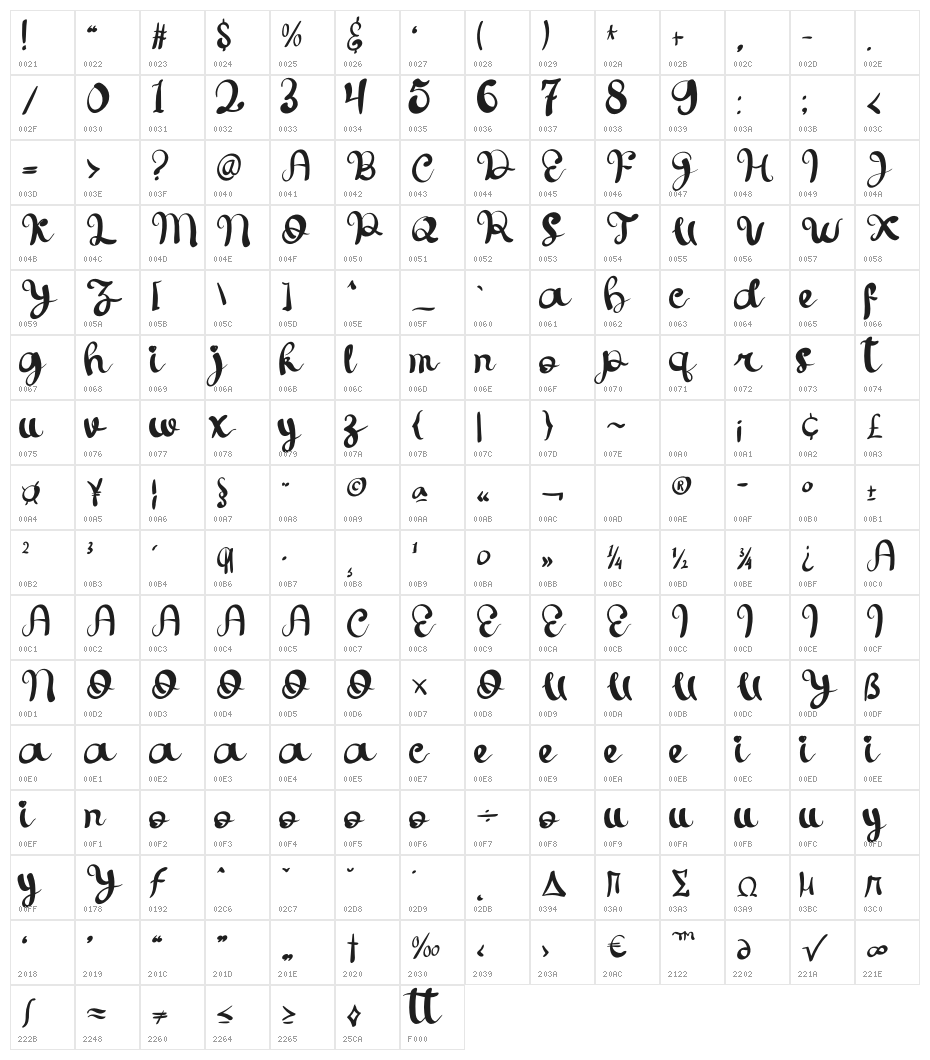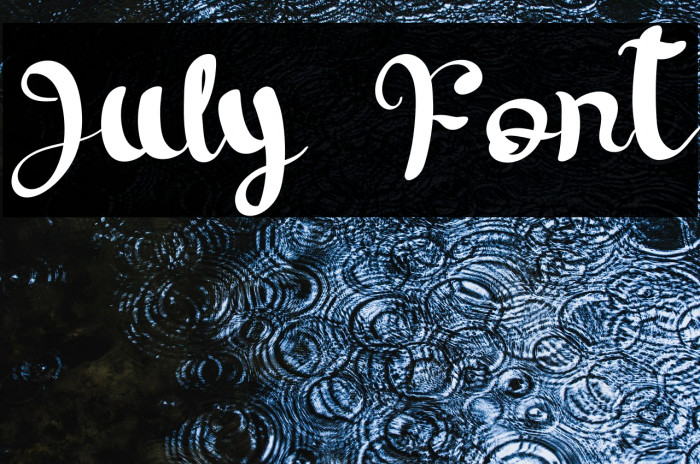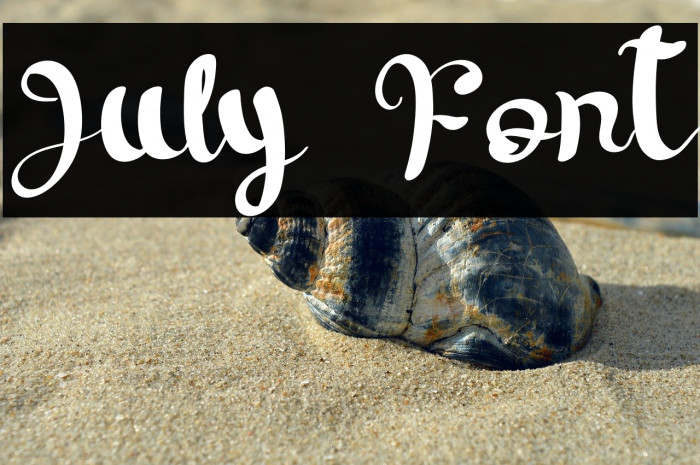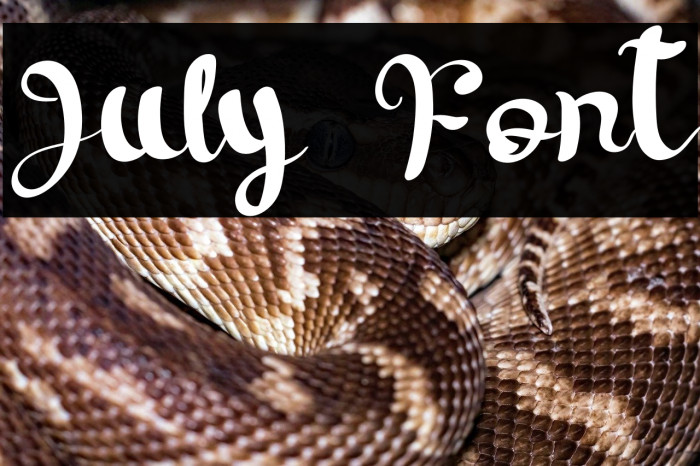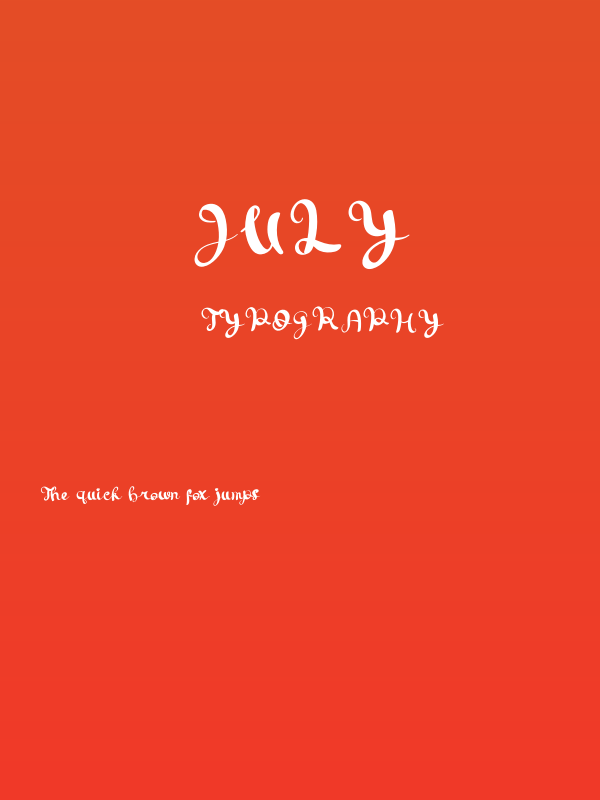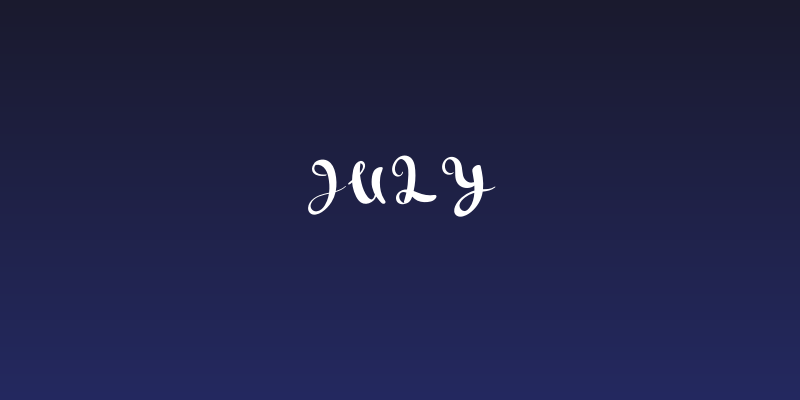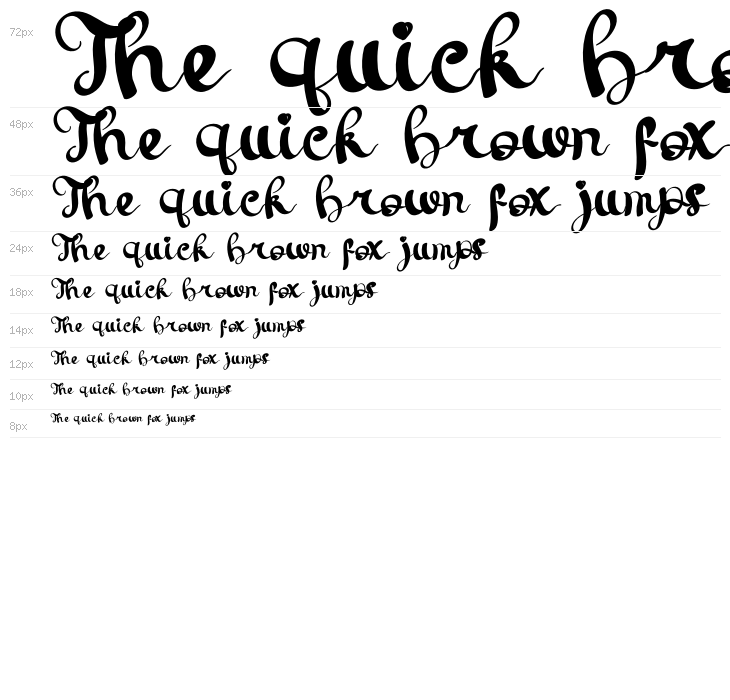
July Font
July Description
This font features a decorative and elegant script style with a flowing, cursive design. The uppercase letters exhibit a graceful and artistic flair, with each character having unique swirls and loops that add a sense of movement and sophistication. The lowercase letters maintain this fluidity, offering a harmonious blend of curves and strokes. The numerals are bold and slightly whimsical, complementing the overall aesthetic. Special characters are designed with the same attention to detail, enhancing the font's versatility for creative projects.